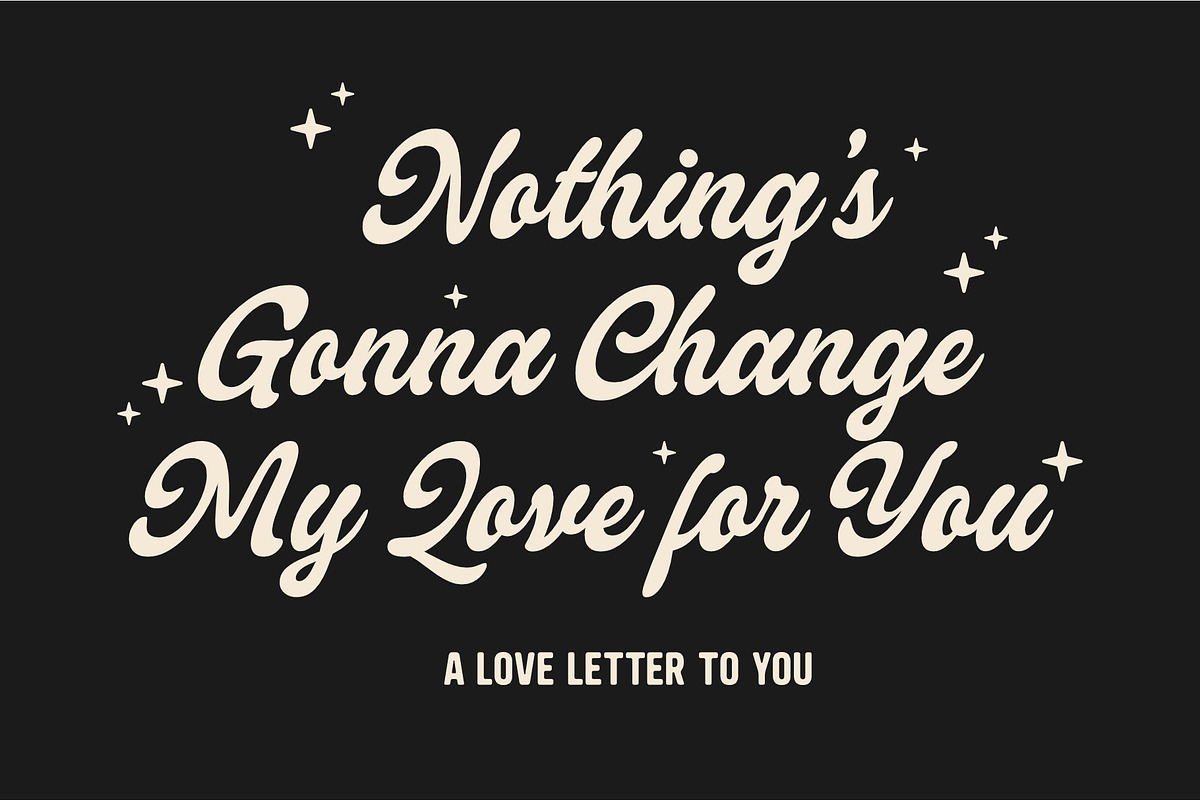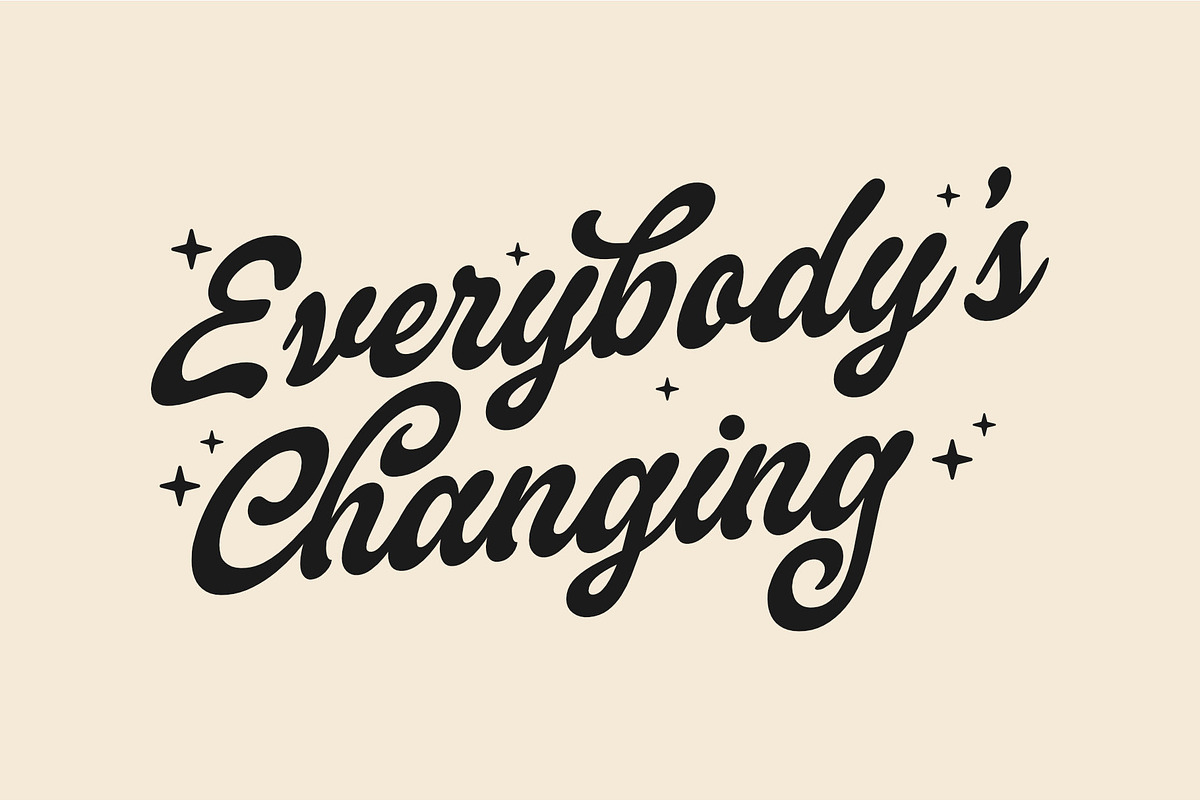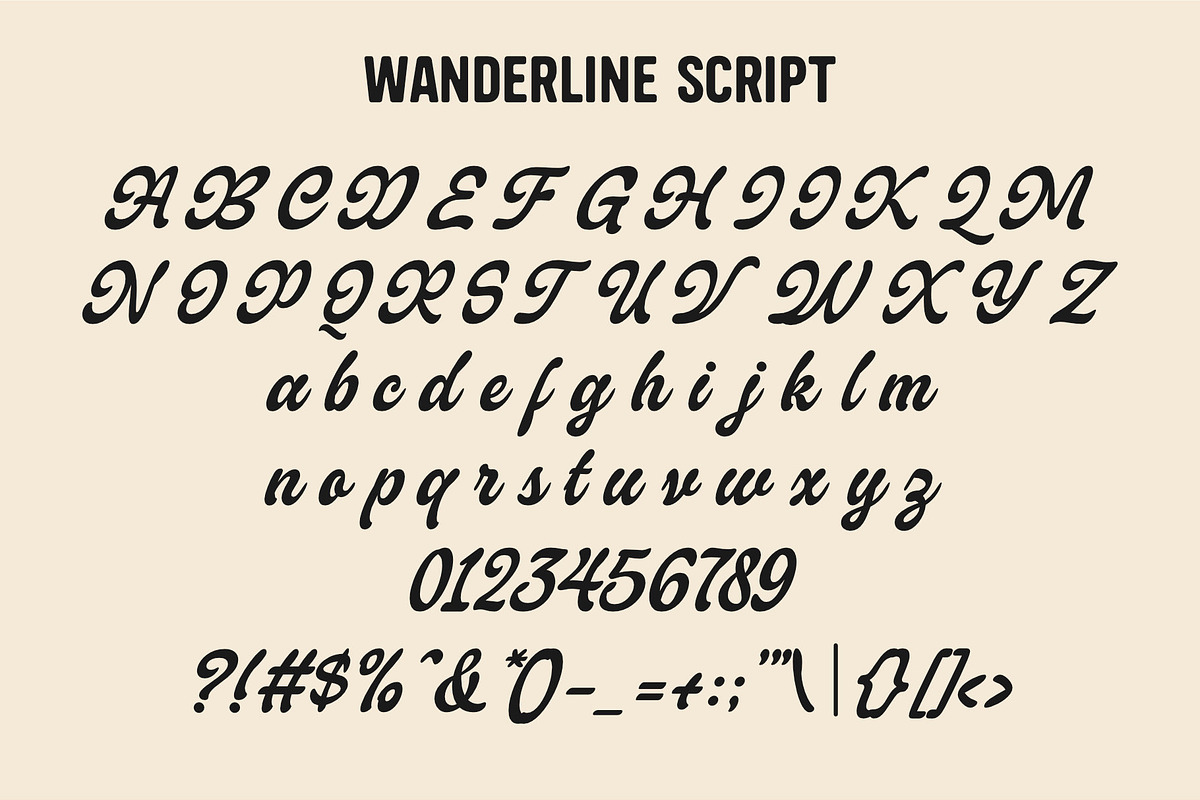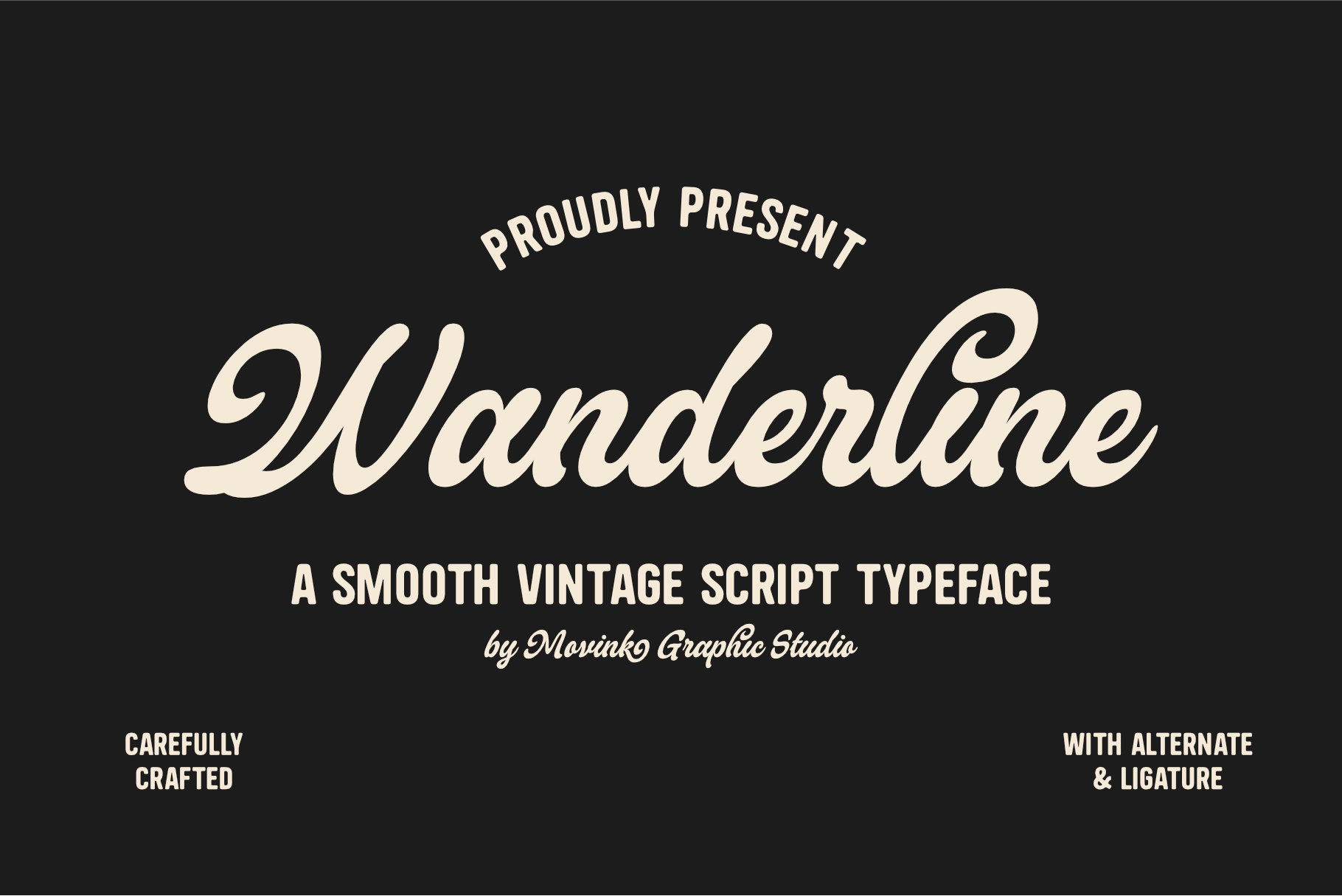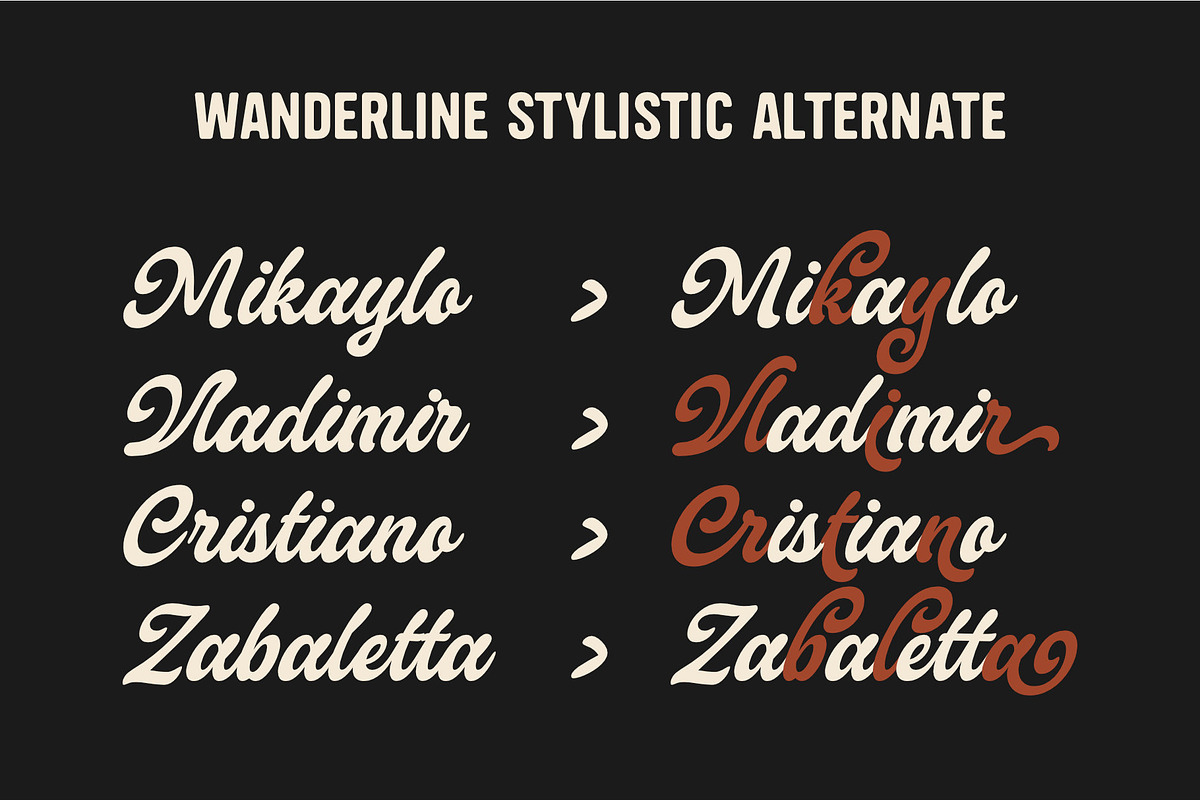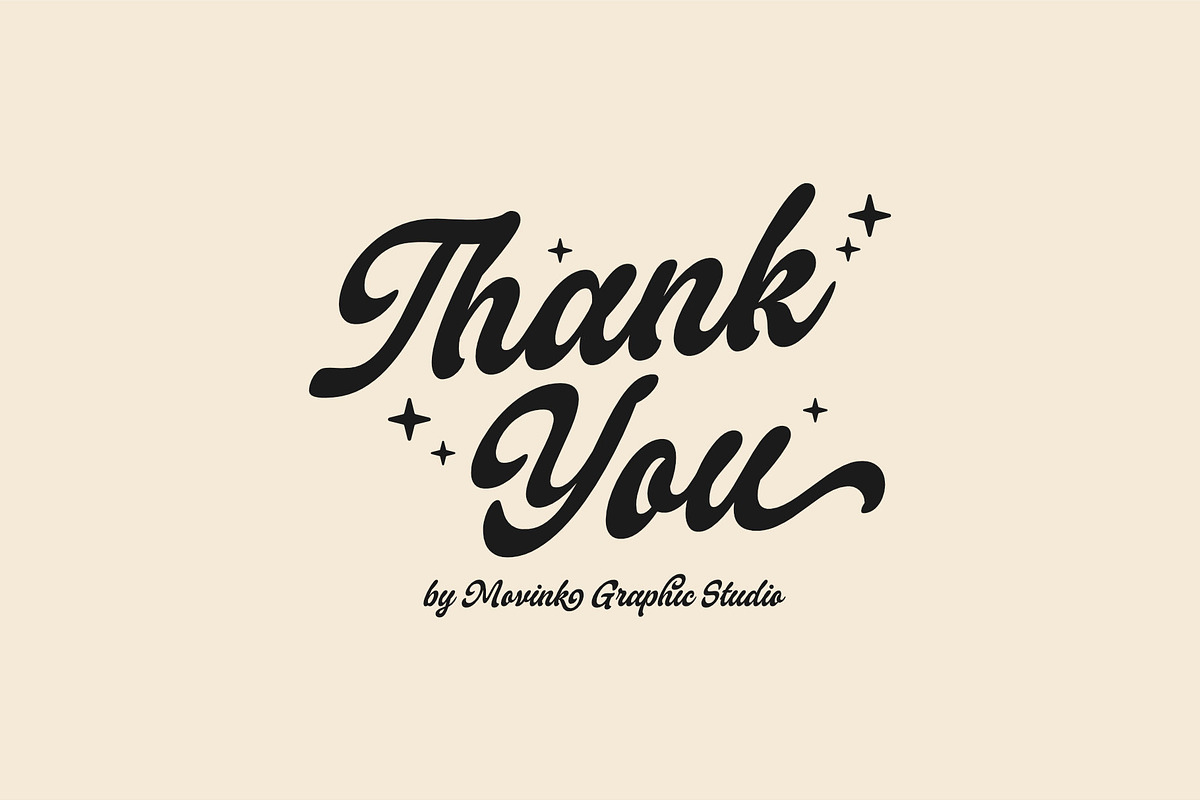
Wanderline – Vintage Script Font
Wanderline is a bold and smooth vintage script typeface crafted to deliver a natural handwritten feel with a clean and professional finish.
Built with carefully balanced curves, soft terminals, and a confident stroke contrast, this font is designed to stand out while remaining highly readable across various applications.
Whether you're working on branding, apparel, packaging, or social media visuals, Wanderline brings a warm, timeless personality that elevates your design instantly.
- Smooth script flow
- Logo & Branding
- T-shirt & Merchandise Design
- Coffee Shop & Bakery Identity
- Packaging Design
- Social Media Graphics
- Vintage & Lifestyle Projects
- Alternate Characters
- Ligature Features
Why Choose Wanderline Unlike overly complex script fonts, Wanderline is designed to be:
- Easy to use
- Highly readable
- Visually strong in both large and medium sizes This makes it a reliable choice for designers who want impact without sacrificing clarity.